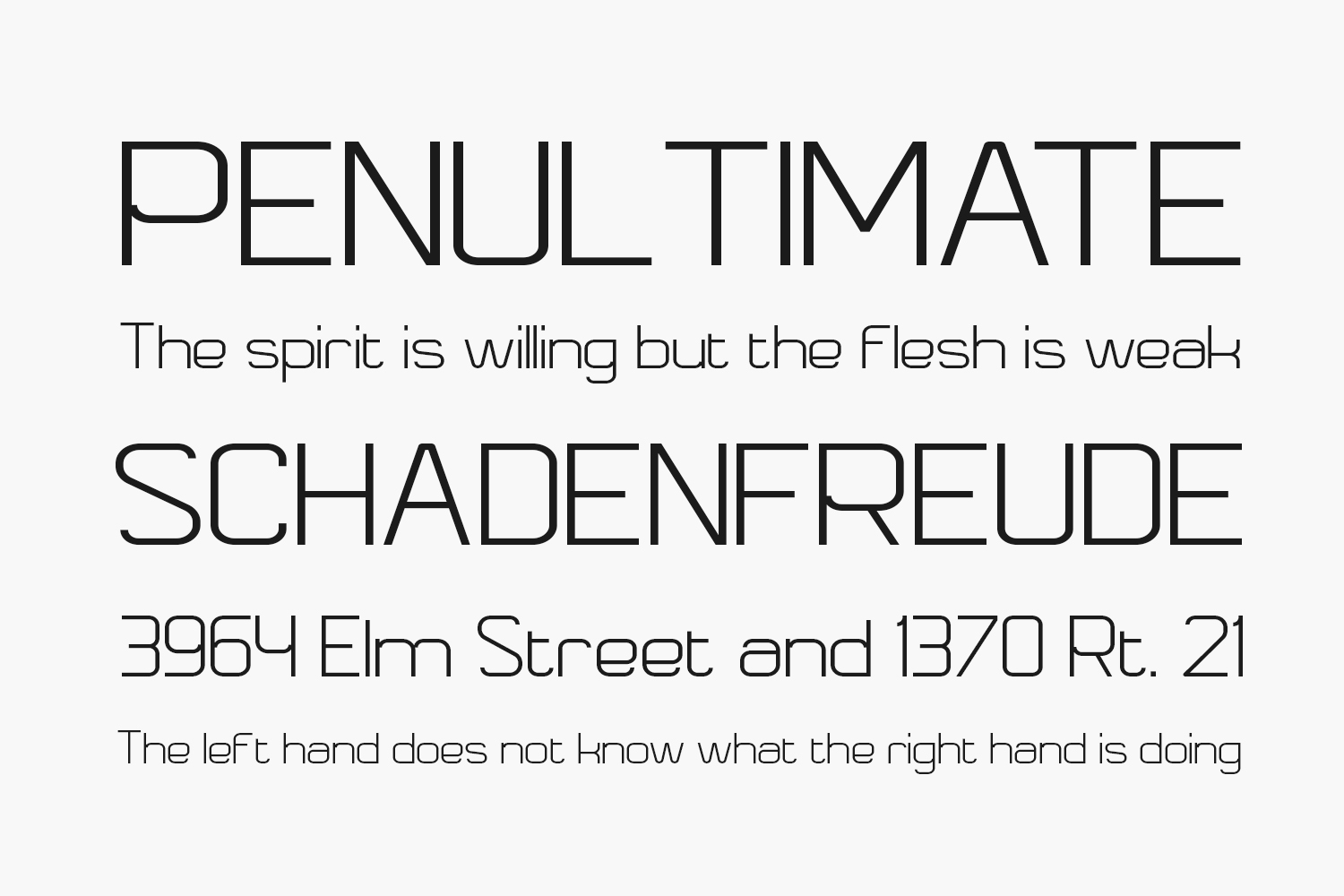
Savec Free Font Family is a display font with sans serif characters uniquely. Very carefully to make the style its own by the character. When the others see by one of the characters, they can easily remember & notice what the font is. You can also use it as a logotype, wordmark in logo design & the other graphic design type as long you can combine uniquely relevant for technology, modern, sci-fi, etc. Savec Free Font Family was designed by Eitiqad is a demo and free for personal use only. Please purchase the full version for commercial use.